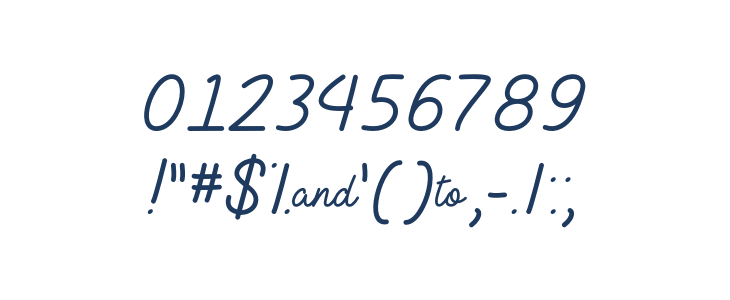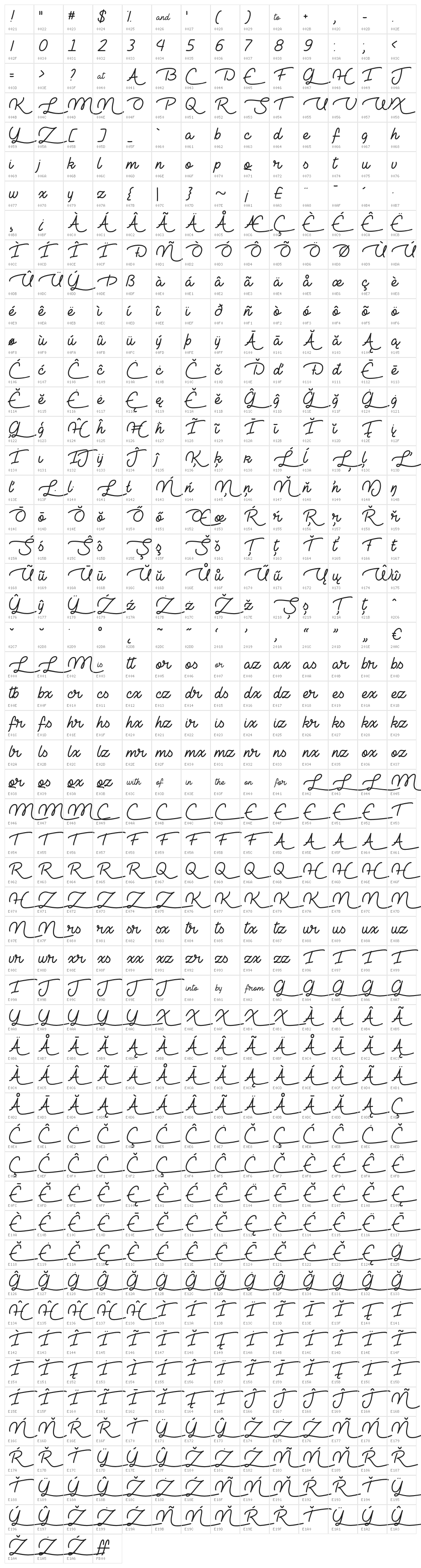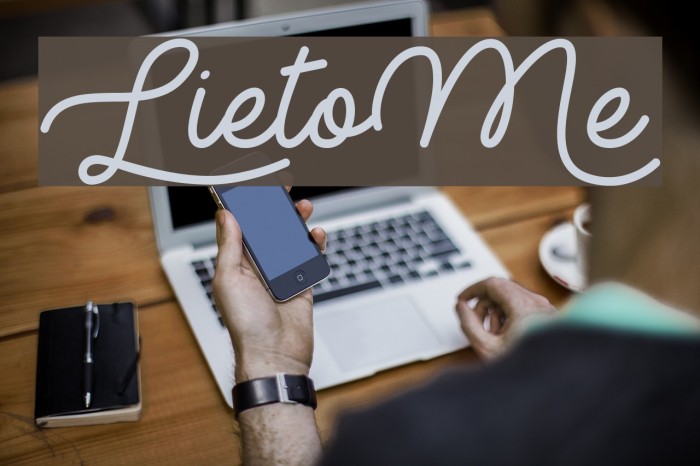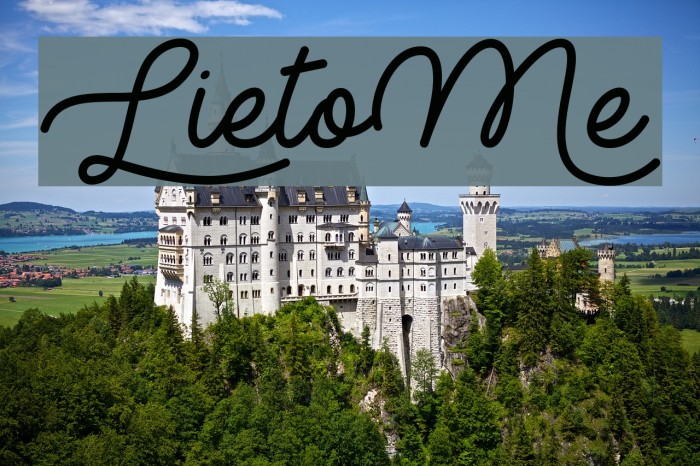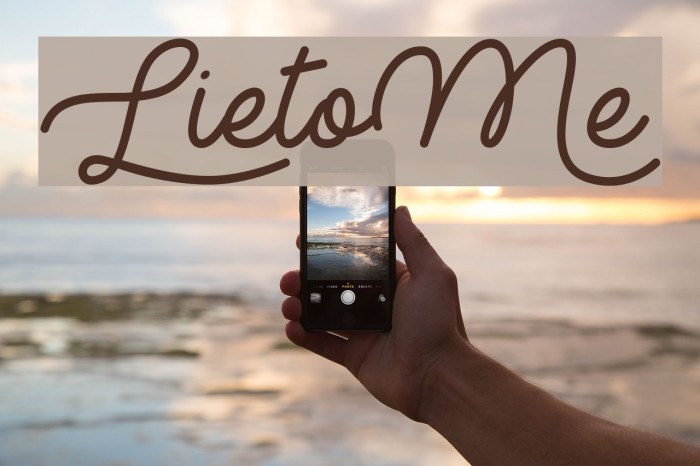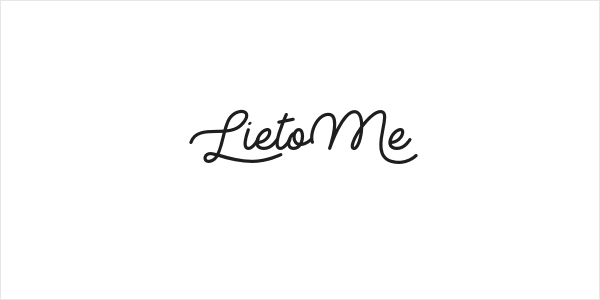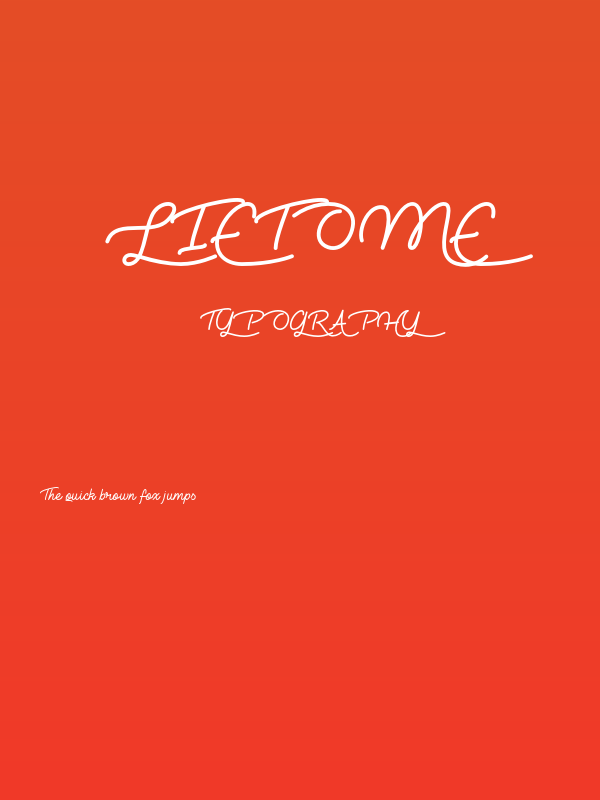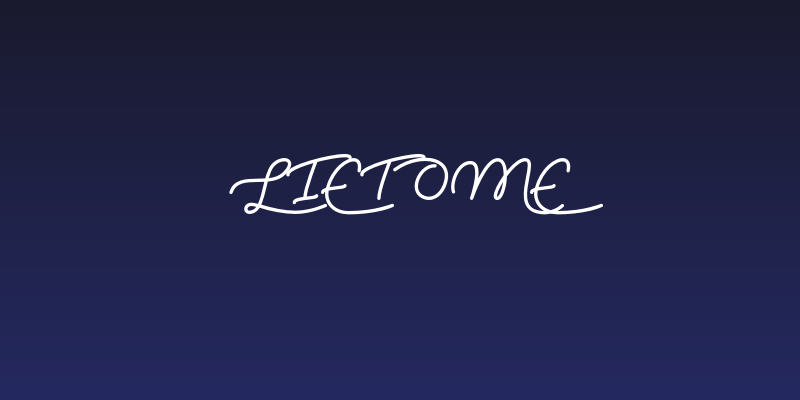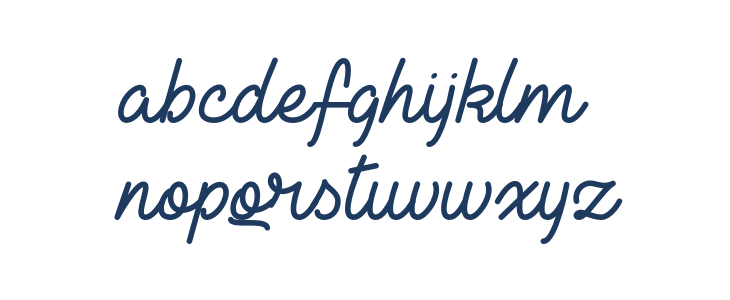
LietoMe Font
LietoMe Description
This font features a flowing, cursive style that exudes elegance and sophistication. The uppercase letters are intricately connected, creating a seamless and fluid appearance. The lowercase letters maintain a consistent flow, enhancing readability while preserving the script's artistic flair. Numbers and special characters are designed to complement the overall aesthetic, with smooth curves and balanced proportions. The font's graceful strokes and harmonious design make it suitable for projects that require a touch of class and refinement.
| Use Case | Headlines, Invitations, Branding |
| Proposed Projects | Ideal for wedding invitations, elegant branding, personal stationery, and decorative headlines. |